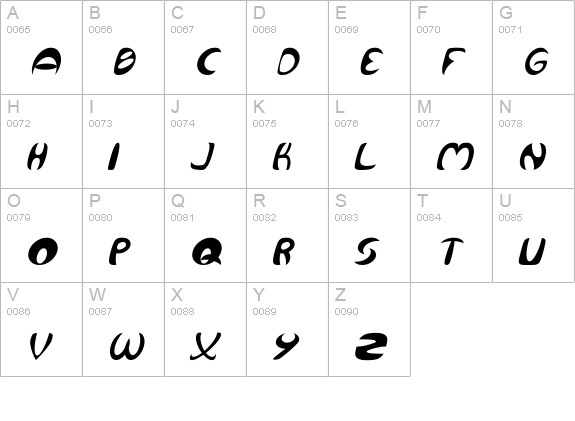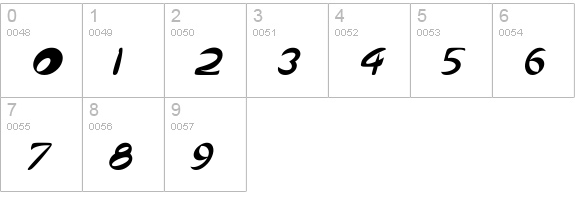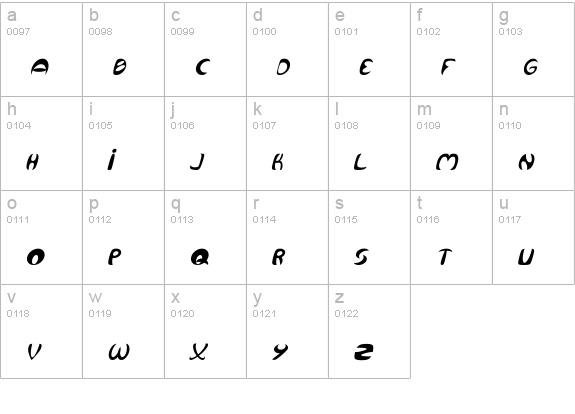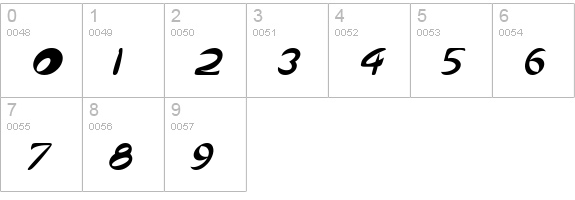
Qurve Italic Font Details
Qurve Italic is a distinctive, italic variant in the Qurve typeface family \xE2\x80\x94 well suited to design and typography projects.
Qurve Italic font is a beautifully designed typeface that effortlessly combines elegance and modernity. Its sleek and curvaceous letterforms are imbued with a subtle touch of sophistication, making it the perfect choice for projects that require a touch of finesse. With its slanted and flowing strokes, Qurve Italic exudes a sense of dynamism and energy, bringing a unique flair to any design. Whether used for headlines, titles, or body text, this font adds a sense of elegance and style to any project. And the best part? Qurve Italic is available for free! You can easily download this font from FontsMarket.com, where it is freely available to all users. This means that you can enhance your designs without breaking the bank, making Qurve Italic the ideal choice for designers, students, and anyone looking to add a touch of sophistication to their projects. So why wait? Download Qurve Italic today and unleash your creativity with this stunning font.